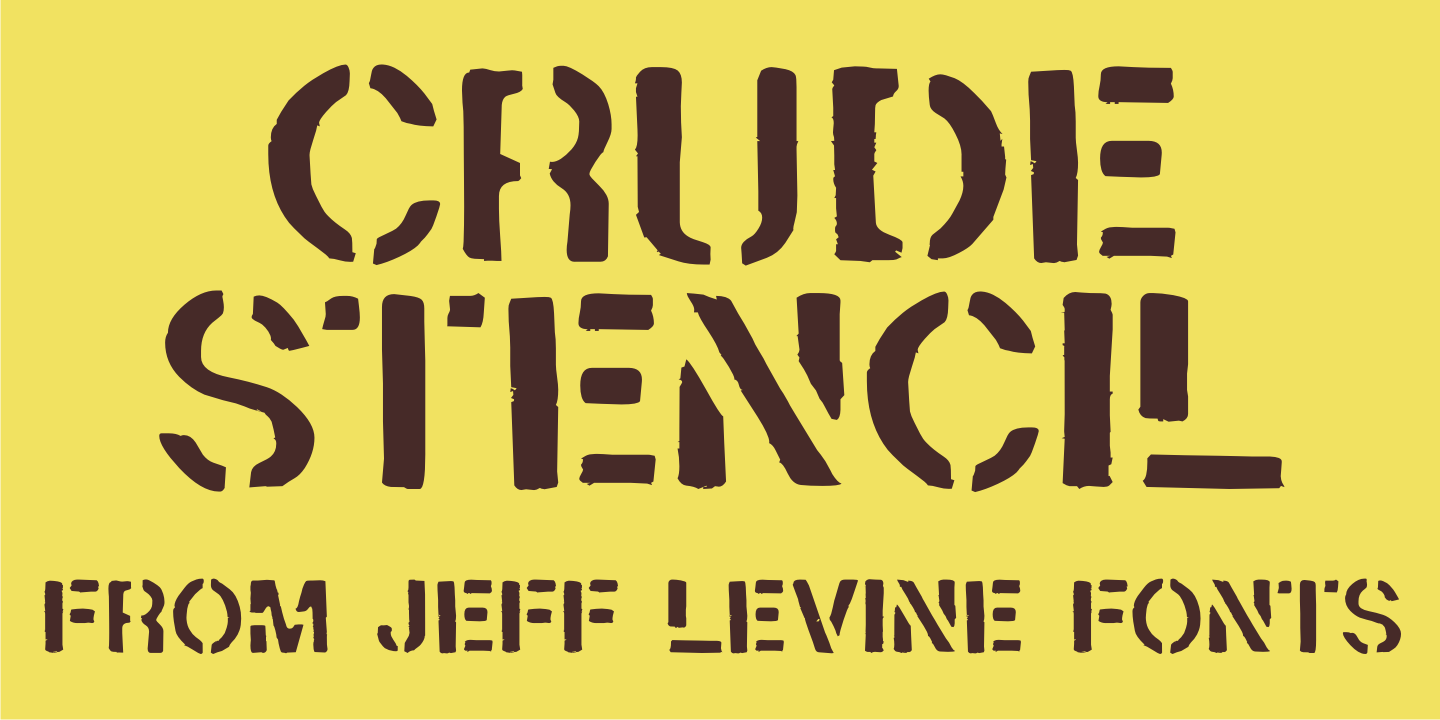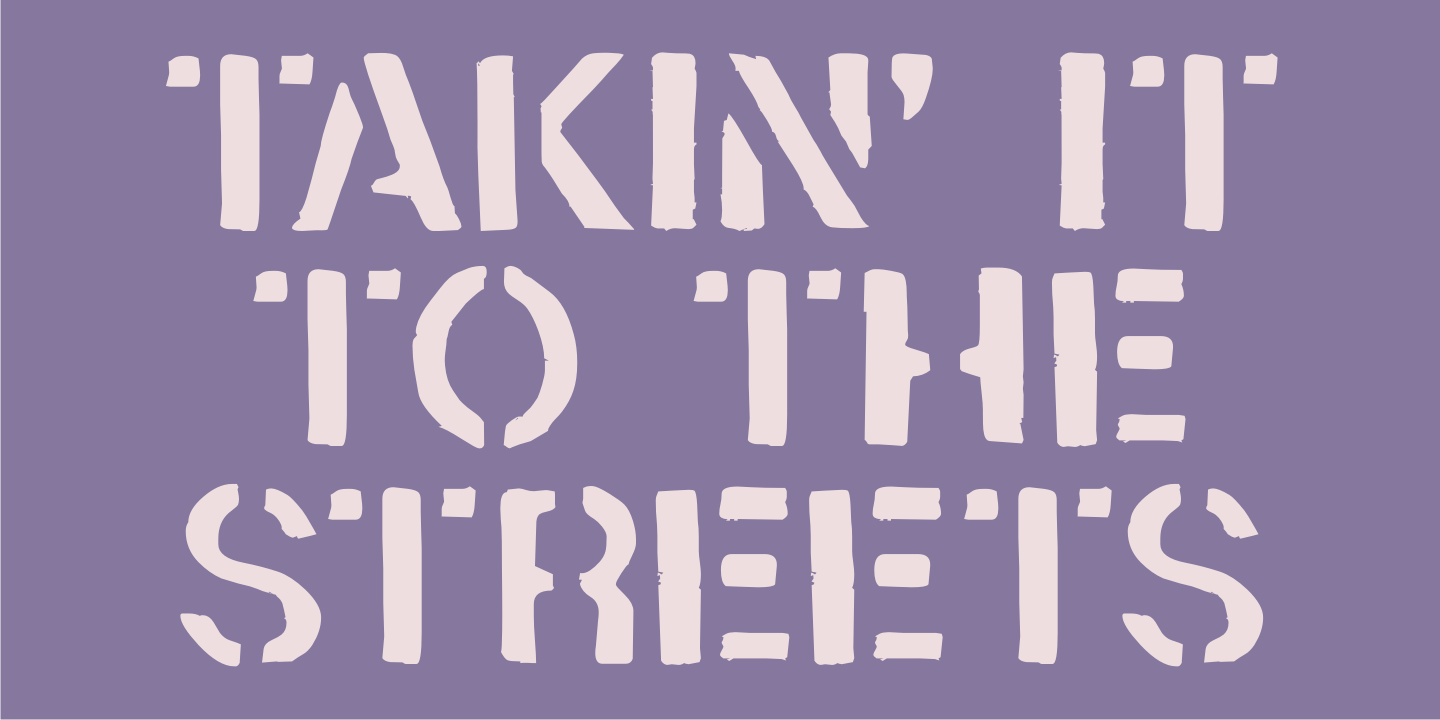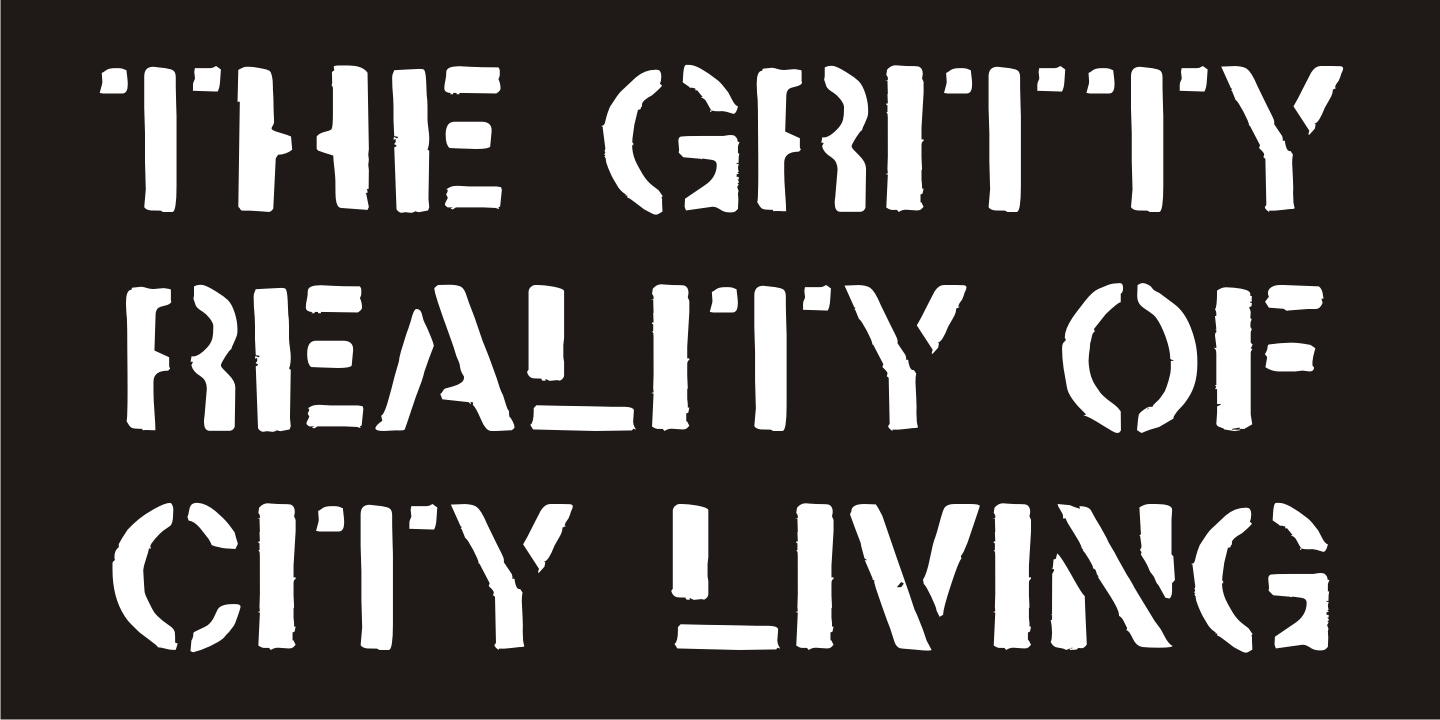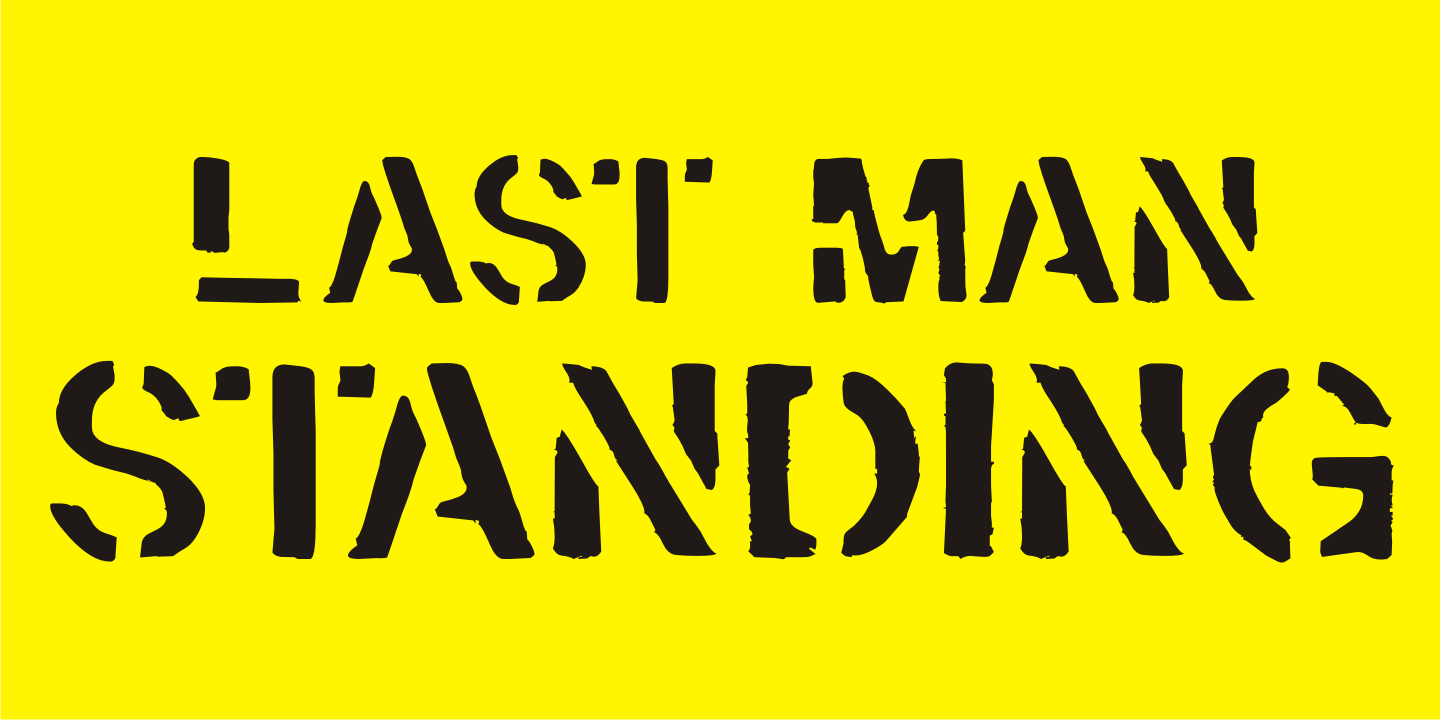
Crude Stencil
Crude Stencil JNL is a rough auto-tracing of a vintage lettering stencil from the 1980s, with additional characters added in post-production.
At small type sizes, the lettering takes on a 'grunge' effect, but larger scale text will reveal more of a jagged 'cut paper' look.
Crude Stencil JNL Regular by Jeff Levine Fonts